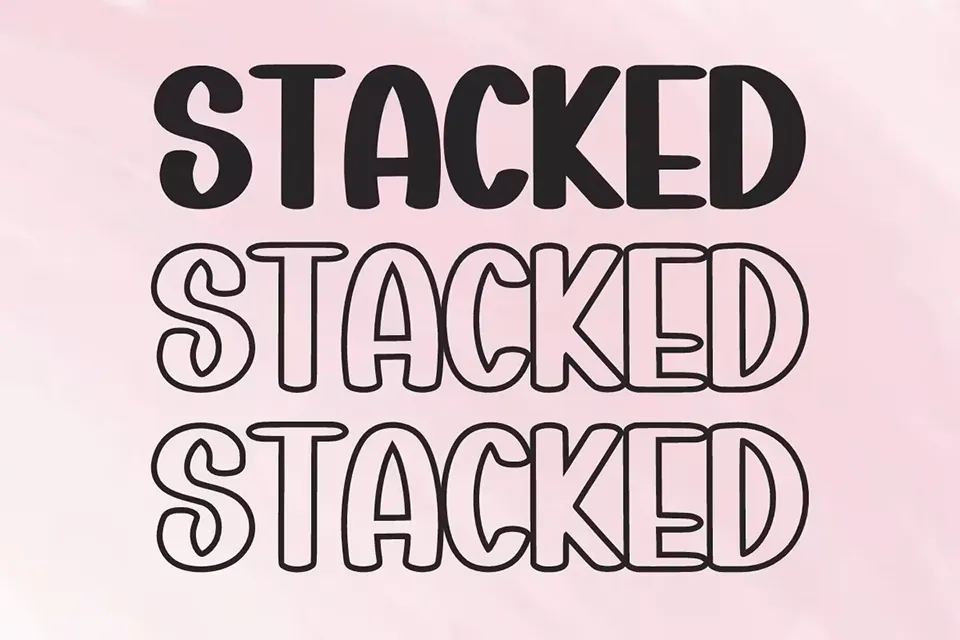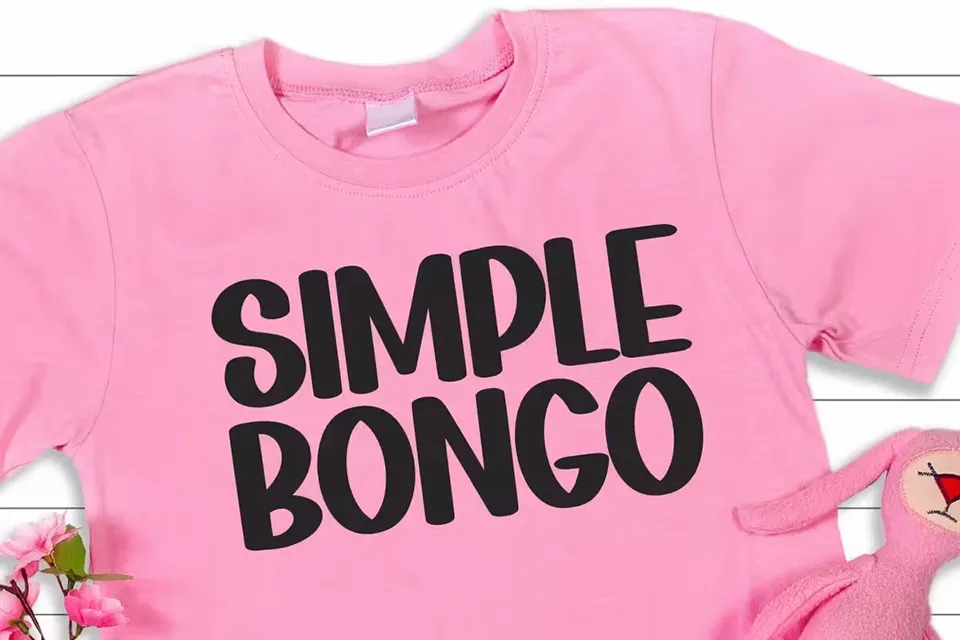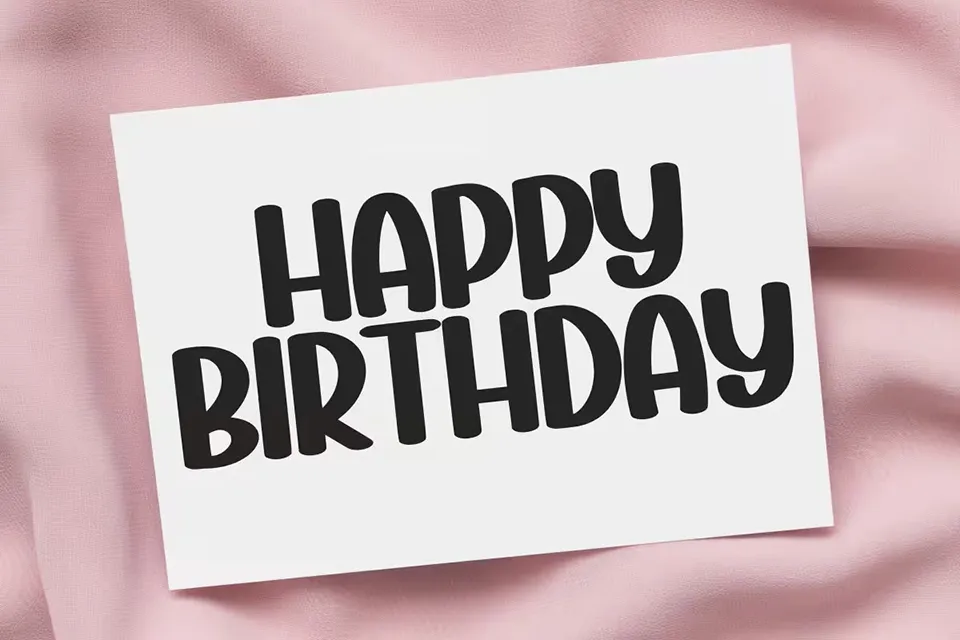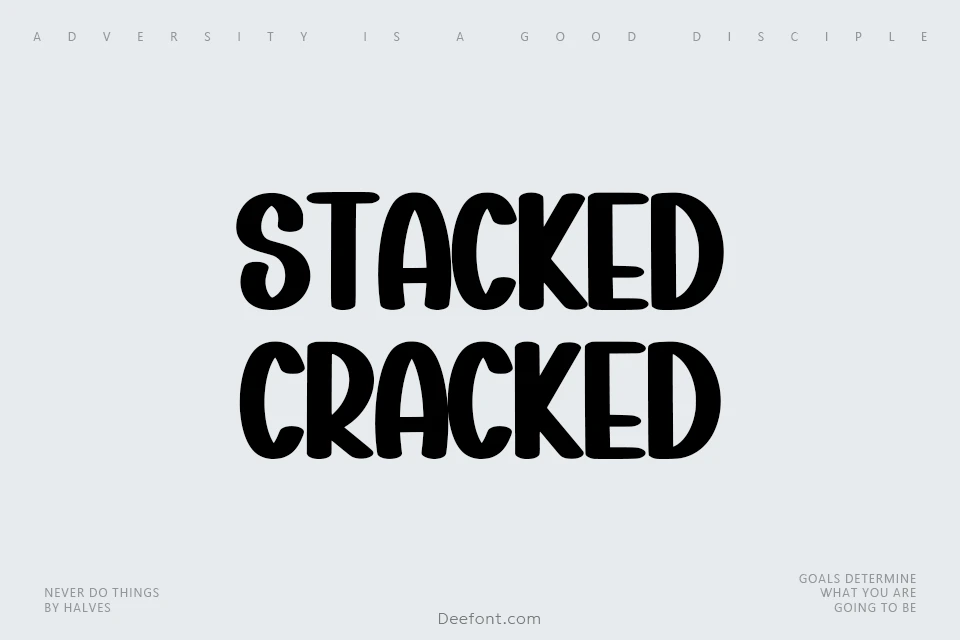
Stacked Cracked Font
Stacked Cracked Font is a bold and playful display typeface. Its thick, rounded letterforms have a slightly irregular, handcrafted feel, contributing to a fun and approachable aesthetic. The name suggests its suitability for creating impactful stacked text arrangements, a popular design trend for grabbing attention in headlines, posters, logos, and social media graphics. This font is designed to make a statement with its substantial weight and charming style, perfect for projects needing a friendly yet commanding visual presence.